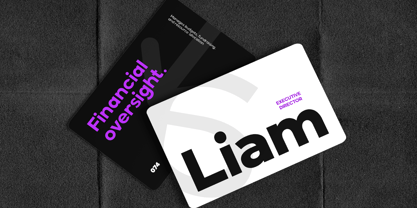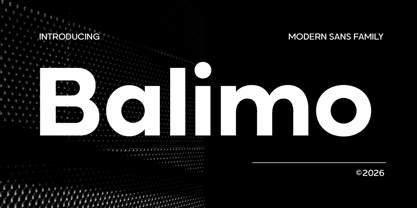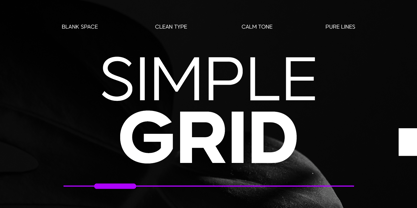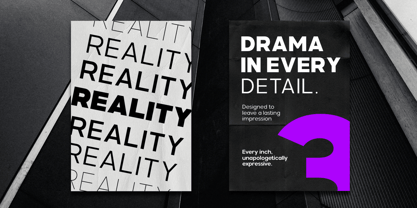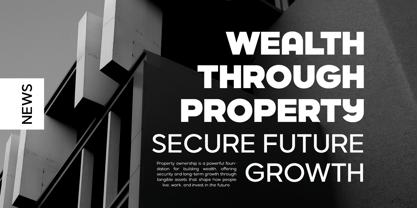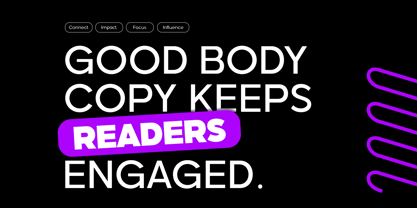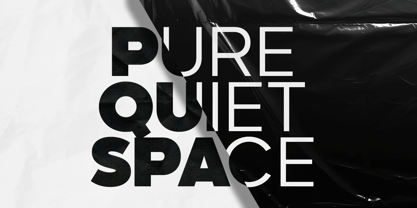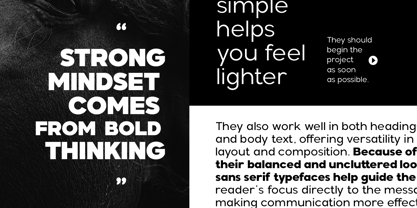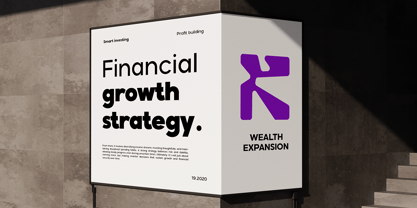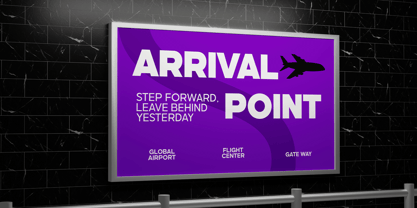
Balimo
por Arterfak Project
La familia tipográfica Balimo fue diseñada por Ahmad Ramzi Fahruddin y publicada por Arterfak Project. Balimo contiene 10 estilos y opciones de paquete familiar. Más información sobre esta familia
Balimo is a modern sans serif typeface designed to deliver clarity, balance, and strong visual presence across any design. Built with a clean geometric structure and refined proportions, Balimo offers a contemporary tone that feels both minimal and expressive. Designed for versatility, Balimo works effortlessly across bold headlines and readable body text. Each character is crafted with consistent rhythm and spacing, ensuring clear communication and a polished appearance in any layout. With 11 weights and 350+ glyphs, Balimo gives you full control over hierarchy and flexibility. Whether for branding, editorial, UI/UX, or marketing, it adapts seamlessly to create clean, confident, and professional designs. Features : - 11 Weights (Thin to Extra Black) - Uppercase & Lowercase - Numbers & punctuation - Multilingual support
Diseñadores: Ahmad Ramzi Fahruddin
Fundición: Arterfak Project